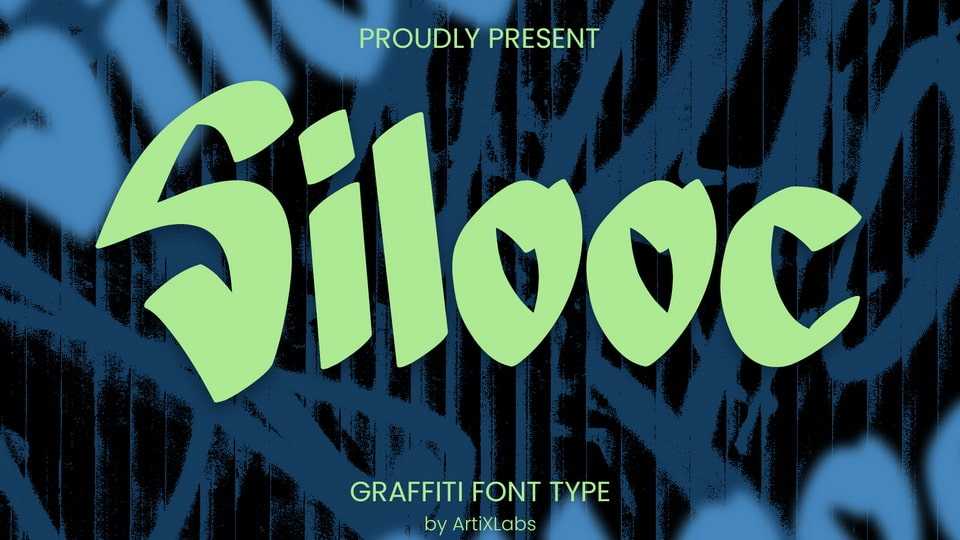
Download Silooc font, a dynamic script graffiti typeface. This font template contains street, expressive, wild, creative, professional and unique concept.